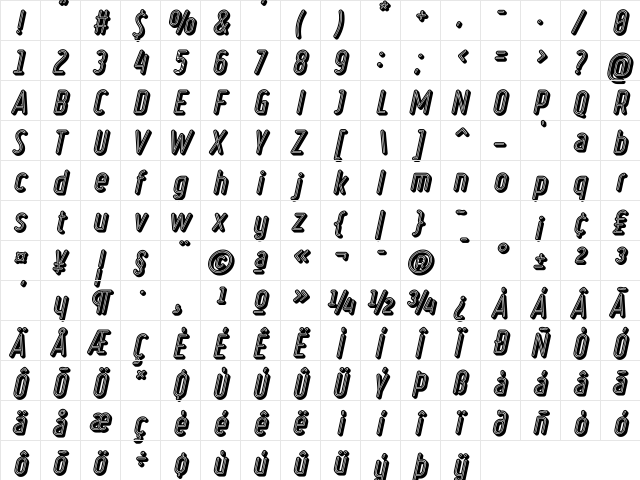
Ruler Volume Neon Regular
| Foundry | Levi Szekeres |
| Designer | Levi Szekeres |
Design Context for Ruler Volume Neon Typeface
Ruler Volume Neon channels digital-age aesthetics through its sharp, structured letterforms — ideal for brands that want to signal innovation.
Pro Tip: Try Ruler Volume Neon with generous letter-spacing in UI labels and navigation — the geometric forms benefit from room to breathe.